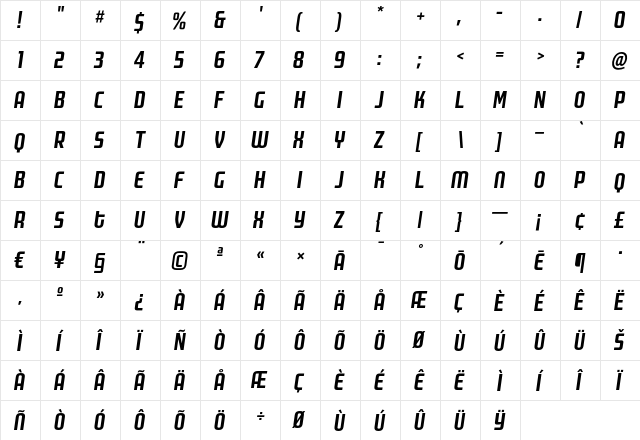
MorganPoster Bold Italic
Design Context for MorganPoster Typeface
MorganPoster offers clean, dependable letterforms without strong stylistic allegiance, making it a practical choice for designers who need flexibility. The slanted form adds forward momentum and visual energy. The heavy weight commands attention and anchors typographic hierarchies.
Pro Tip: Use MorganPoster for emphasis, pull quotes, and subheadings where its slanted energy can add rhythm to the layout.